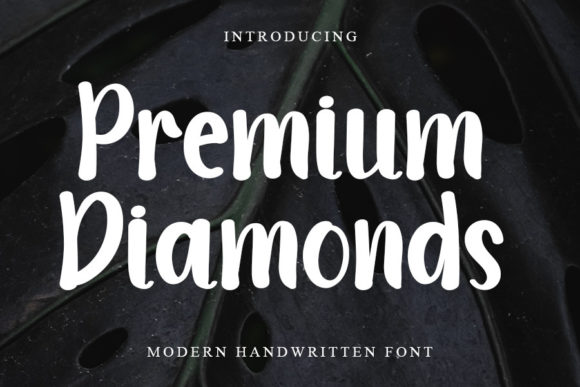
**Introducing Premium Diamonds Font: The Epitome of Sophistication and Grace**
In the realm of typography, where letters dance and words come alive, Premium Diamonds Font emerges as a radiant star, captivating hearts with its timeless elegance and contemporary charm. Inspired by the enduring legacy of classic calligraphy, this script font effortlessly weaves together the allure of tradition with a modern twist, inviting you to embark on an extraordinary journey of creative expression.
**Unleash the Allure of Timeless Beauty**
With its meticulously crafted curves and balanced proportions, Premium Diamonds Font exudes an air of sophistication and poise. Its delicate strokes, reminiscent of a skilled calligrapher's hand, lend a touch of refinement to your designs, transforming them into masterpieces of visual delight. Each letter is a testament to the artistry and attention to detail that went into the creation of this font, ensuring that your words will leave a lasting impression on your audience.
**Ignite Your Creativity with Endless Possibilities**
Whether you're crafting logos that exude authority and elegance, designing captivating social media graphics that demand attention, or creating heartfelt invitations that evoke a sense of occasion, Premium Diamonds Font is your perfect companion. Its versatility knows no bounds, effortlessly adapting to a myriad of design projects, from branding and marketing materials to personal stationery and digital artwork. Let your imagination soar as you explore the boundless creative possibilities that await.
**Embrace the Power of Emotional Connection**
With Premium Diamonds Font, you have the power to evoke emotions and create a lasting impact on your audience. Its graceful lines and elegant curves have an inherent ability to stir the senses and captivate hearts. Whether you're expressing love, joy, or sorrow, this font will amplify your message, ensuring that your words resonate with your readers on a deeper level. Create designs that touch souls and leave an indelible mark on the world.
**Elevate Your Designs to New Heights of Distinction**
In a world saturated with visual noise, it's your responsibility to distinguish yourself and make your designs shine brighter than the rest. Premium Diamonds Font is your secret weapon, transforming ordinary words into extraordinary statements. Its refined aesthetic and impeccable form will elevate your projects to new heights of distinction, ensuring that they stand out from the crowd and leave a lasting impression.